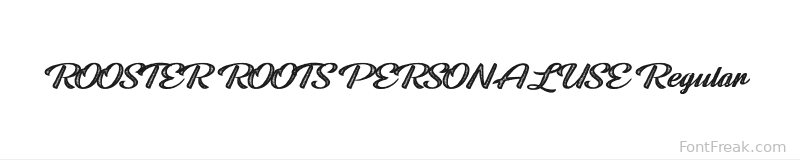
ROOSTER ROOTS PERSONAL USE Regular
About ROOSTER ROOTS PERSONAL USE Regular
ROOSTER ROOTS PERSONAL USE Regular is a captivating script font designed by Billy Argel Fonts, characterized by its elegant and flowing strokes that bring a touch of whimsy to any project. This font features a medium stroke weight with smooth transitions and a moderate contrast, allowing for legibility while still maintaining a decorative flair. The letters are well-spaced, ensuring that each character stands out without overwhelming the viewer, making it perfect for various applications.
This font is particularly well-suited for use in wedding invitations, where its romantic style can help convey the special nature of the event. It also works beautifully for restaurant menus, lending an air of sophistication to the dining experience. Additionally, ROOSTER ROOTS PERSONAL USE Regular can enhance movie posters by adding a unique personality that captures the essence of the film. Small business owners can utilize this font for branding materials, such as logos or promotional flyers, giving their designs a distinctive edge. Content creators looking to add flair to their social media graphics will also find this font incredibly versatile.
What sets ROOSTER ROOTS apart is its ability to evoke emotion while remaining highly usable. The artistic flair coupled with its readability ensures that it can be used in a variety of contexts, making it a standout choice for anyone seeking a font that marries style with practicality. Whether for personal projects or professional designs, this font will undoubtedly leave a lasting impression.